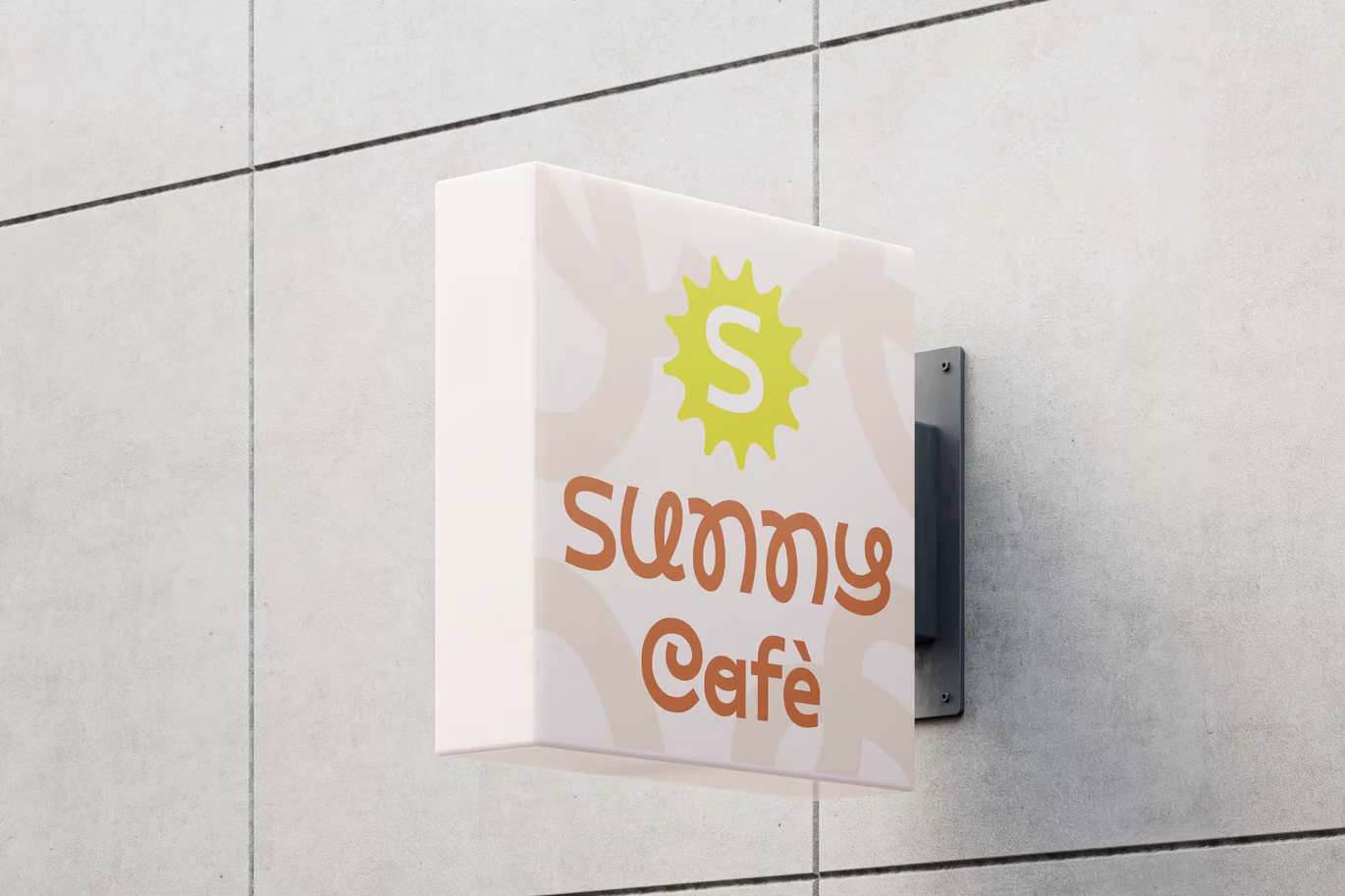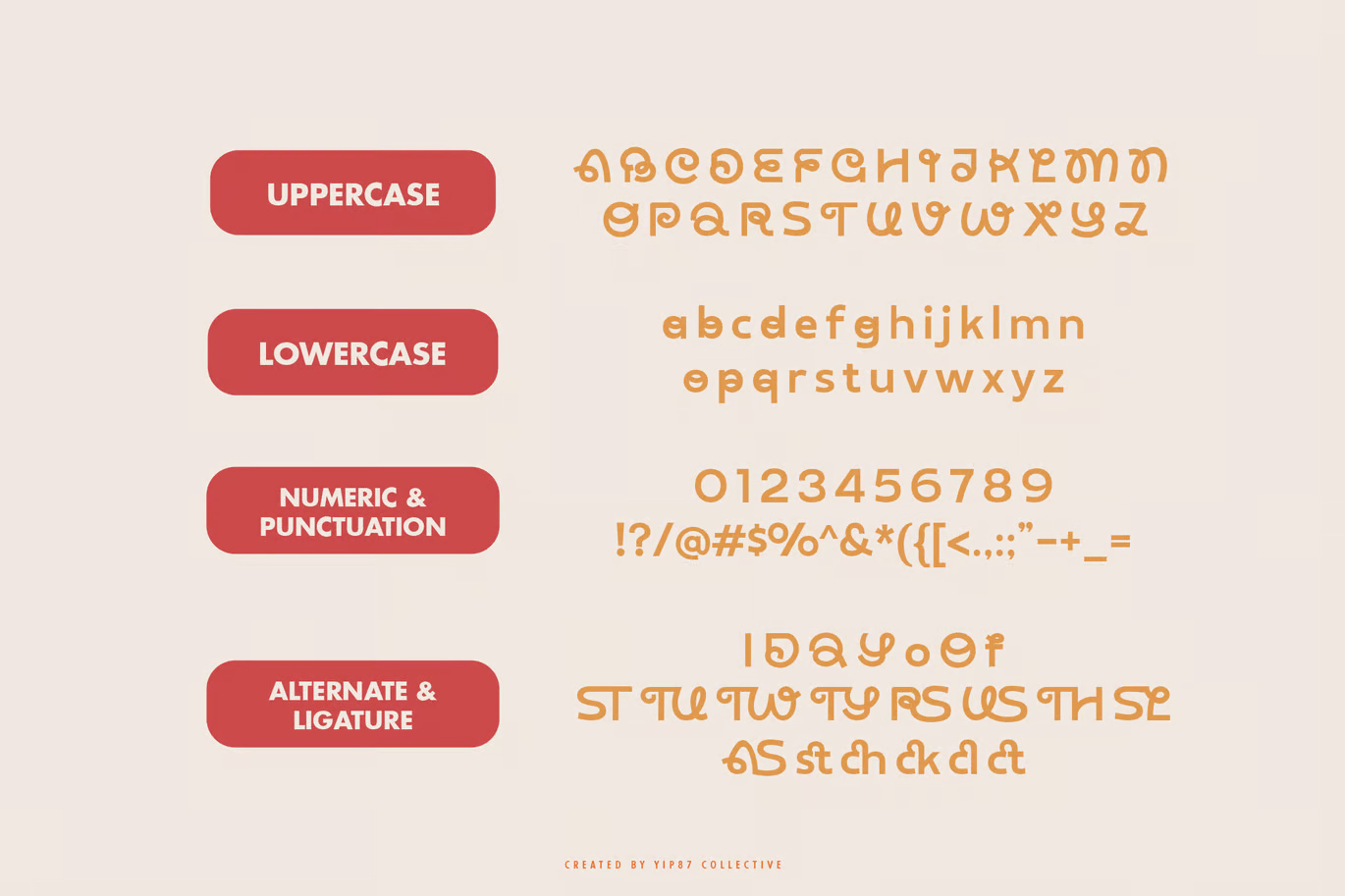
Camoney is a Modern Loopy Sans Font that seamlessly blends contemporary aesthetics with playful, unique loopy details. This font offers a fresh, lively, and expressive approach to modern typography, making it an excellent choice for designers seeking to add charm and character to their work. With its smooth curves and stylish loops, Camoney is perfect for a wide range of creative applications, including branding projects, eye-catching logos, product packaging, social media graphics, whimsical posters, dynamic headlines, and engaging advertising campaigns. Whether you’re designing for a fun and youthful brand or looking to inject a touch of personality into your project, Camoney delivers versatility with a distinctive flair.
Camoney – Modern Creative Unique Loopy Bold Sans Font